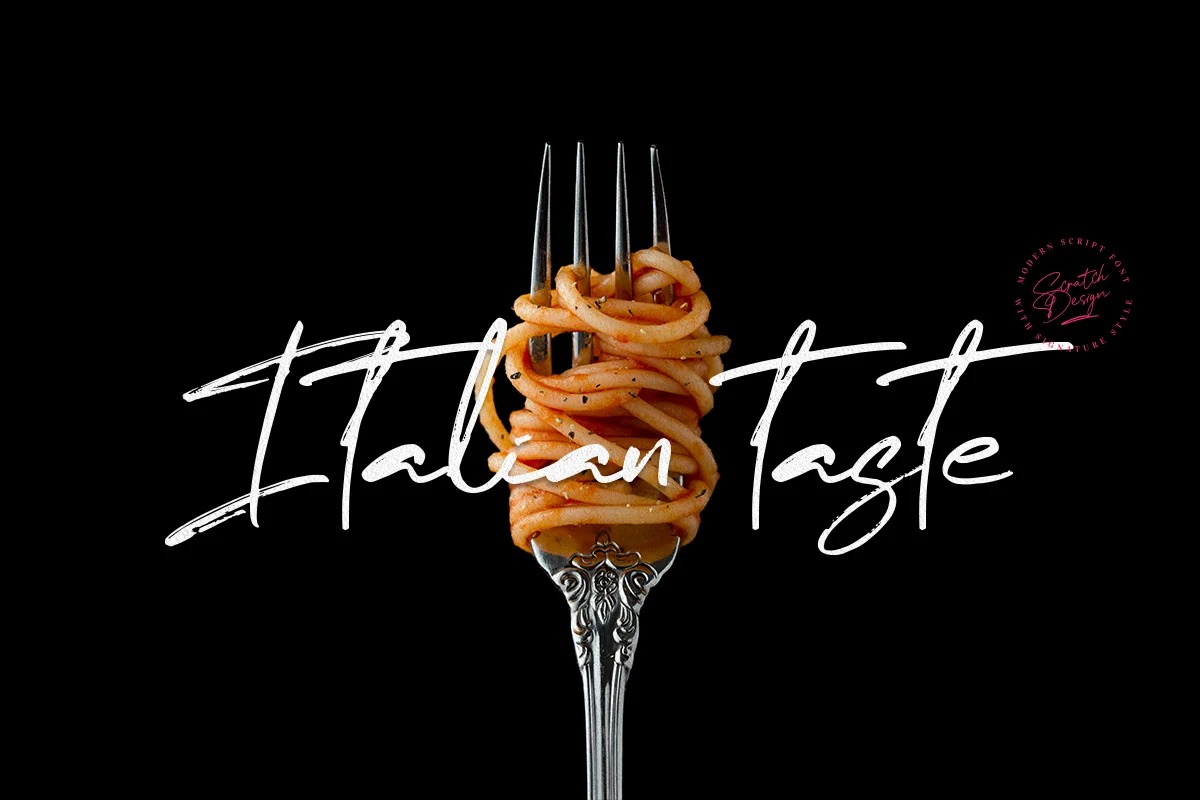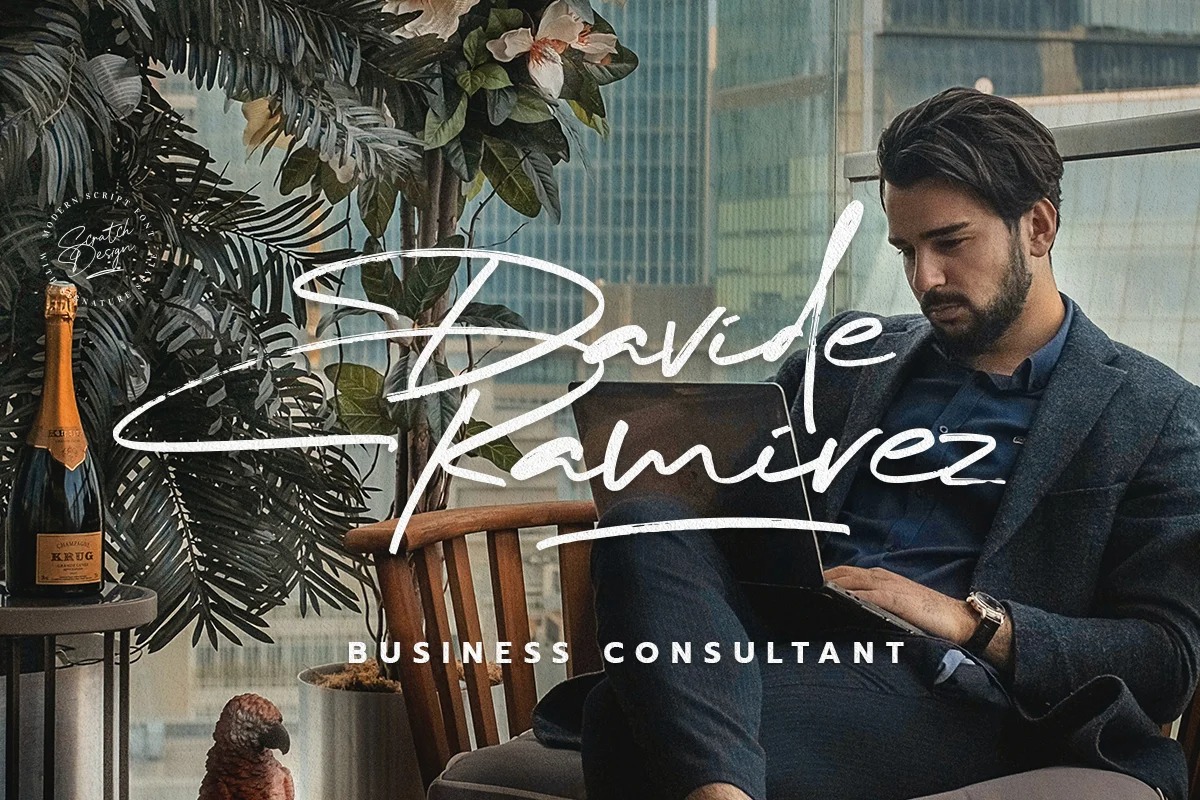
Omaha Beach Font
Omaha Beach Handwritten Font
This is a handwritten brush typeface crafted & designed by Scratch Design Bali. It’s highly recommended for you who want to make some designs with natural brush handwriting with signature style. Omaha Beach Font will work for the company logo, signature logo, name card design, invitation design, wedding design, poster, packaging, book cover title, quote, social media post, etc.